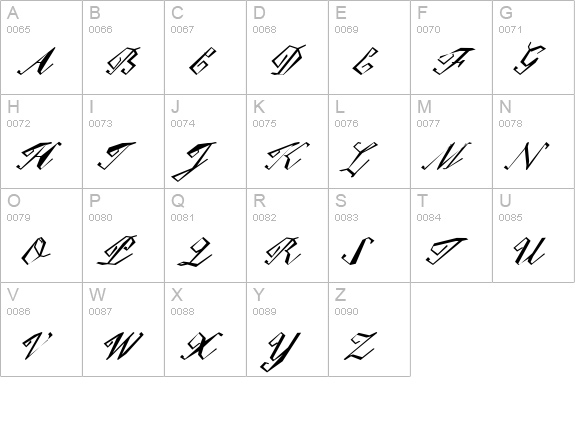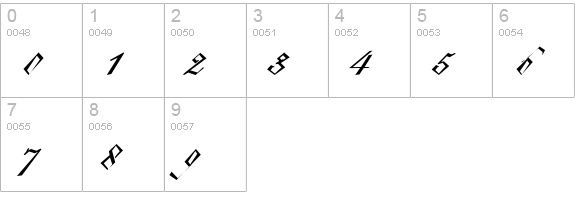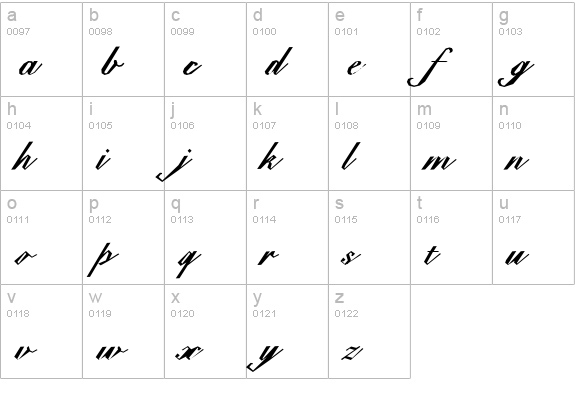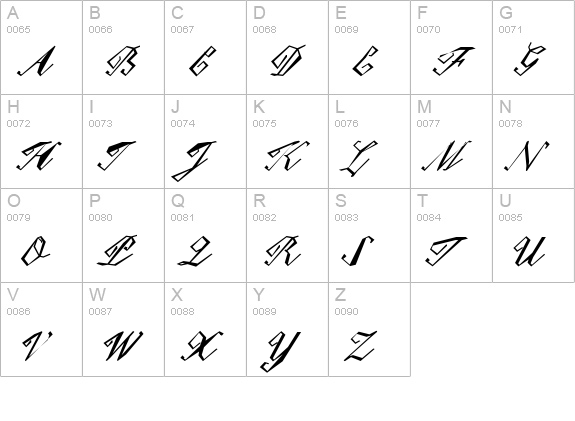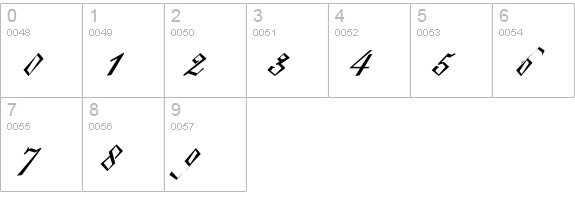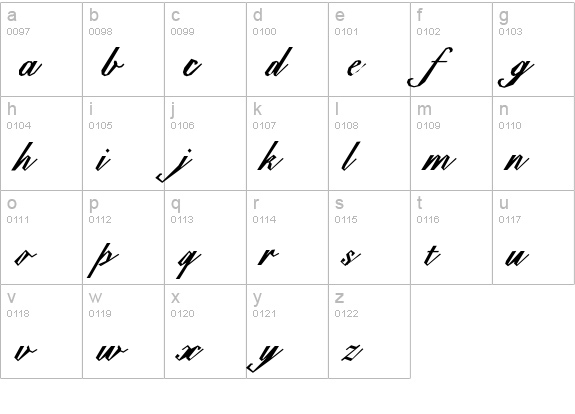
PauletA Font Details
PauletA font is a stunning and versatile typeface that will surely captivate any design enthusiast. With its elegant curves and unique letterforms, this font brings a touch of sophistication to any project. Whether used for branding, logo design, or editorial layouts, PauletA font effortlessly stands out and adds a sense of refinement. What makes PauletA font even more impressive is that it is available for free. Yes, you read it right! You don't have to break the bank to enjoy the beauty and versatility of this font. PauletA font can be freely downloaded at FontsMarket.com, a trusted and reliable source for high-quality fonts. By choosing PauletA font, you not only get access to a visually stunning typeface, but you also get the freedom to use it in any personal or commercial project without any restrictions. This font allows you to unleash your creativity and bring your design visions to life without worrying about licensing fees or limitations. PauletA font's extensive character set ensures that it can be used in various languages and typographic styles, making it a go-to choice for designers worldwide. Its legibility and readability make it suitable for both large-scale display applications and smaller text sizes, ensuring that your message is conveyed effectively and beautifully. Whether you're a professional designer looking to add a touch of elegance to your work or a creative enthusiast exploring the world of typography, PauletA font is a must-have in your font library. Download it for free at FontsMarket.com and elevate your designs to new heights with this exquisite typeface.